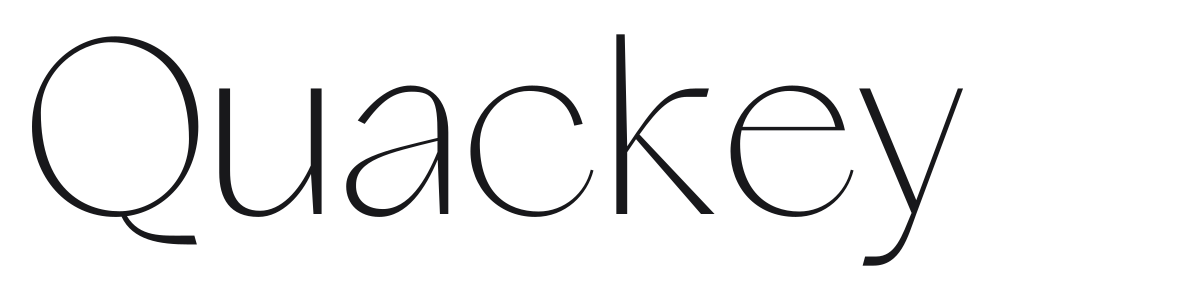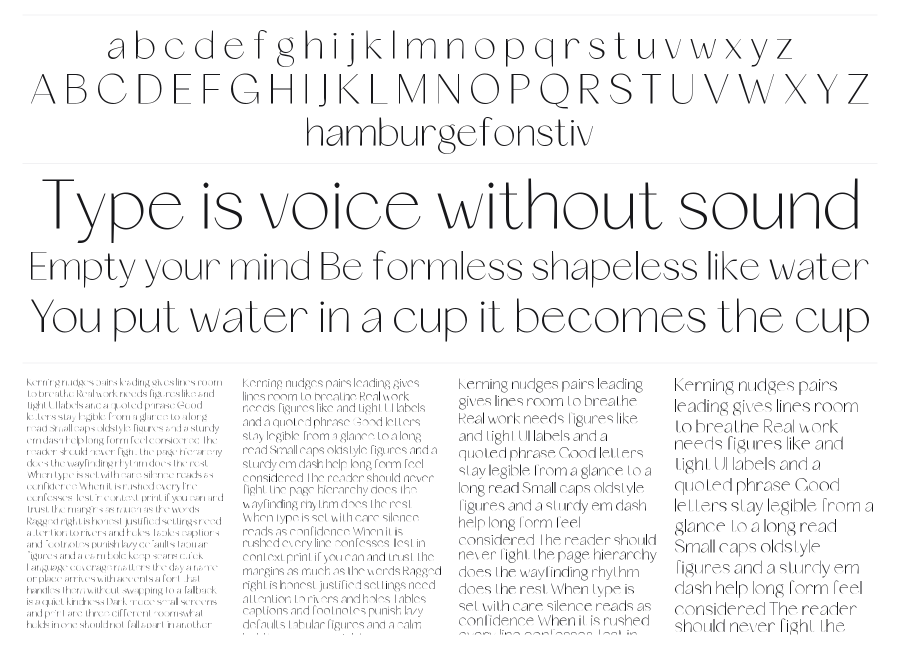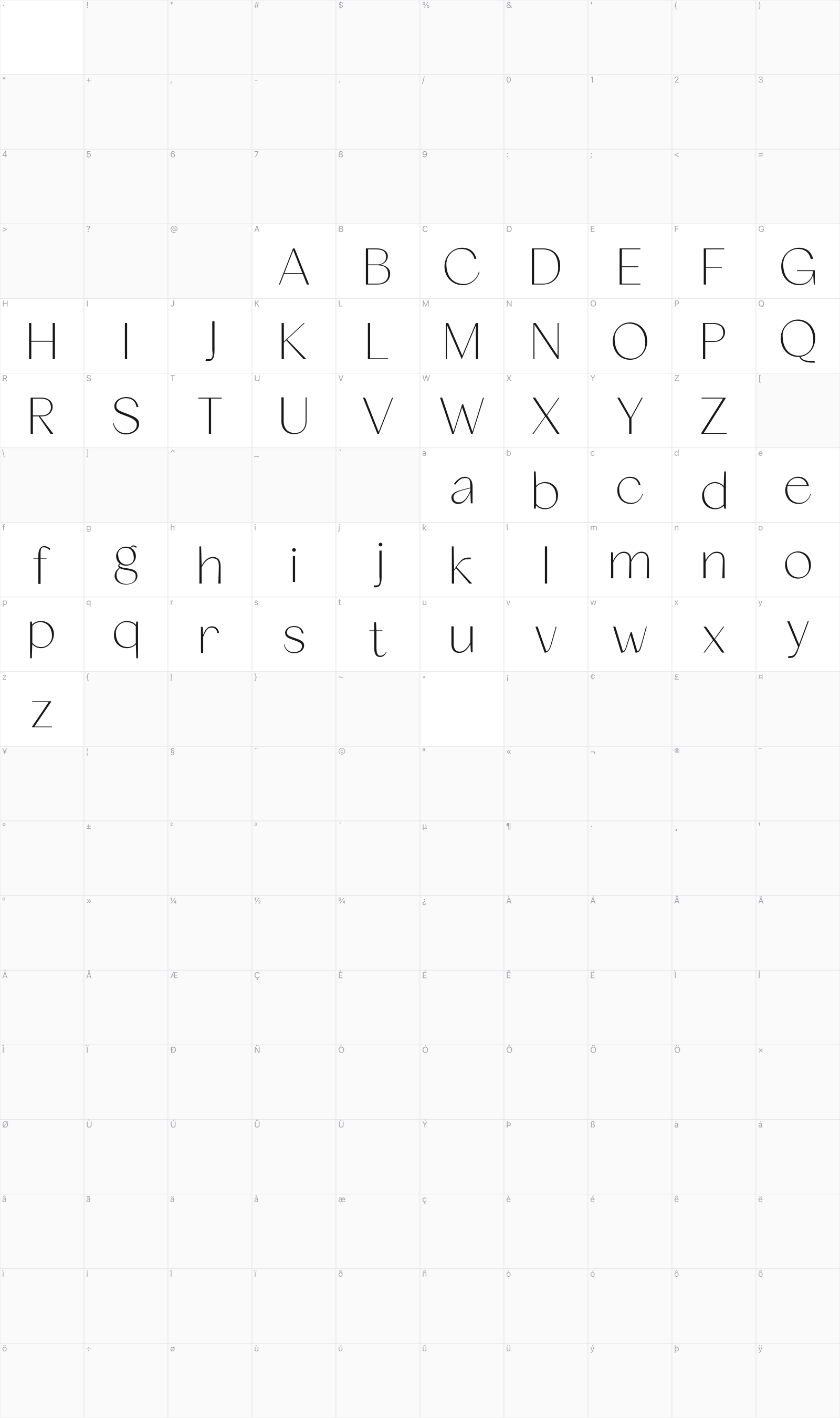
Quackey
Quackey is an ultra-thin humanist sans with hairline strokes and subtly tapered terminals that give it a calligraphic, high-fashion character. The wide proportions and open apertures keep it airy and legible at large sizes, while the near-hairline weight makes it feel light and refined. It belongs on magazine covers, perfume packaging, and identity work where elegance is the brief.